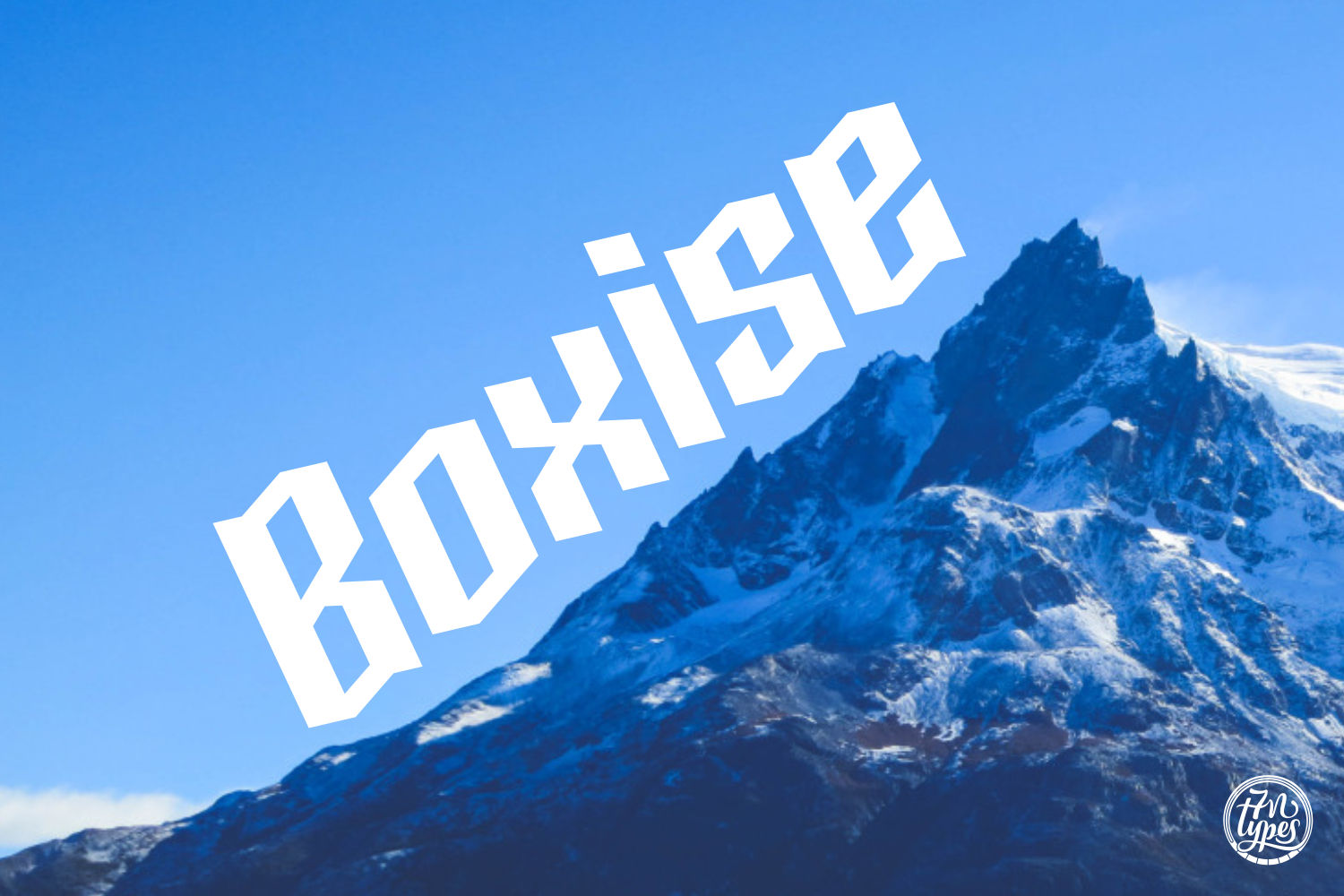
The Boxise Font: A Surprisingly Legible Blackletter Style
I’ll never forget the design struggle I faced while working on a project for a medieval-themed restaurant. I was tasked with creating a menu that would transport customers back in time, but I was having a hard time finding the perfect font. That’s when I stumbled upon Boxise, a characteristic type created by Situjuh Nazara. This blackletter style font surprised me with its legibility, and I knew I had found the perfect fit.
- ✨ Surprisingly legible for a blackletter font, making it perfect for body text and headings
- ✅ Great for standard blackletter usage like headings, logos, posters, and signs
- ✅ Also suitable for apparel, cards & invites, menus, and more
- ✅ Unique character that adds a touch of elegance to any design
While Boxise is an amazing font, there are a few things to keep in mind:
- ⚠️ May not be the best choice for very small text sizes, as some details may get lost
- 🤔 Limited availability of stylistic alternates, which may limit creative options
Situjuh Nazara, the creator of Boxise, is a talented font designer with a passion for creating unique and functional fonts. According to an interview, Nazara was inspired by traditional blackletter fonts, but wanted to create a font that was more legible and versatile. The result is Boxise, a font that’s perfect for a wide range of design projects.
Q: What is Boxise font?
A: Boxise is a blackletter style font created by Situjuh Nazara. It’s known for its surprising legibility and versatility.
Q: Is Boxise suitable for body text?
A: While Boxise is primarily designed for headings and titles, it’s also surprisingly legible for body text. However, it’s recommended to use it for larger text sizes for optimal readability.
Q: Is Boxise available in different styles or weights?
A: Boxise is a single font style, but it does offer some OpenType features like glyphs and stylistic alternates that can add more creativity to your design.